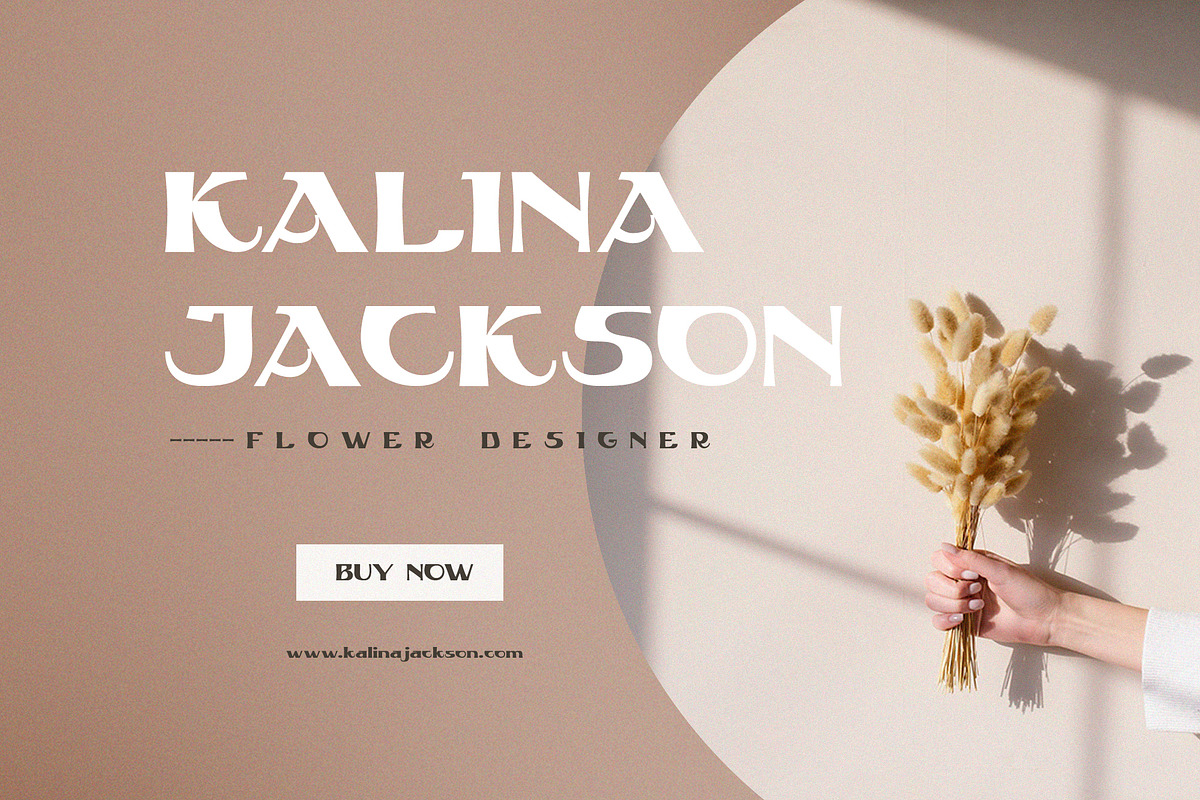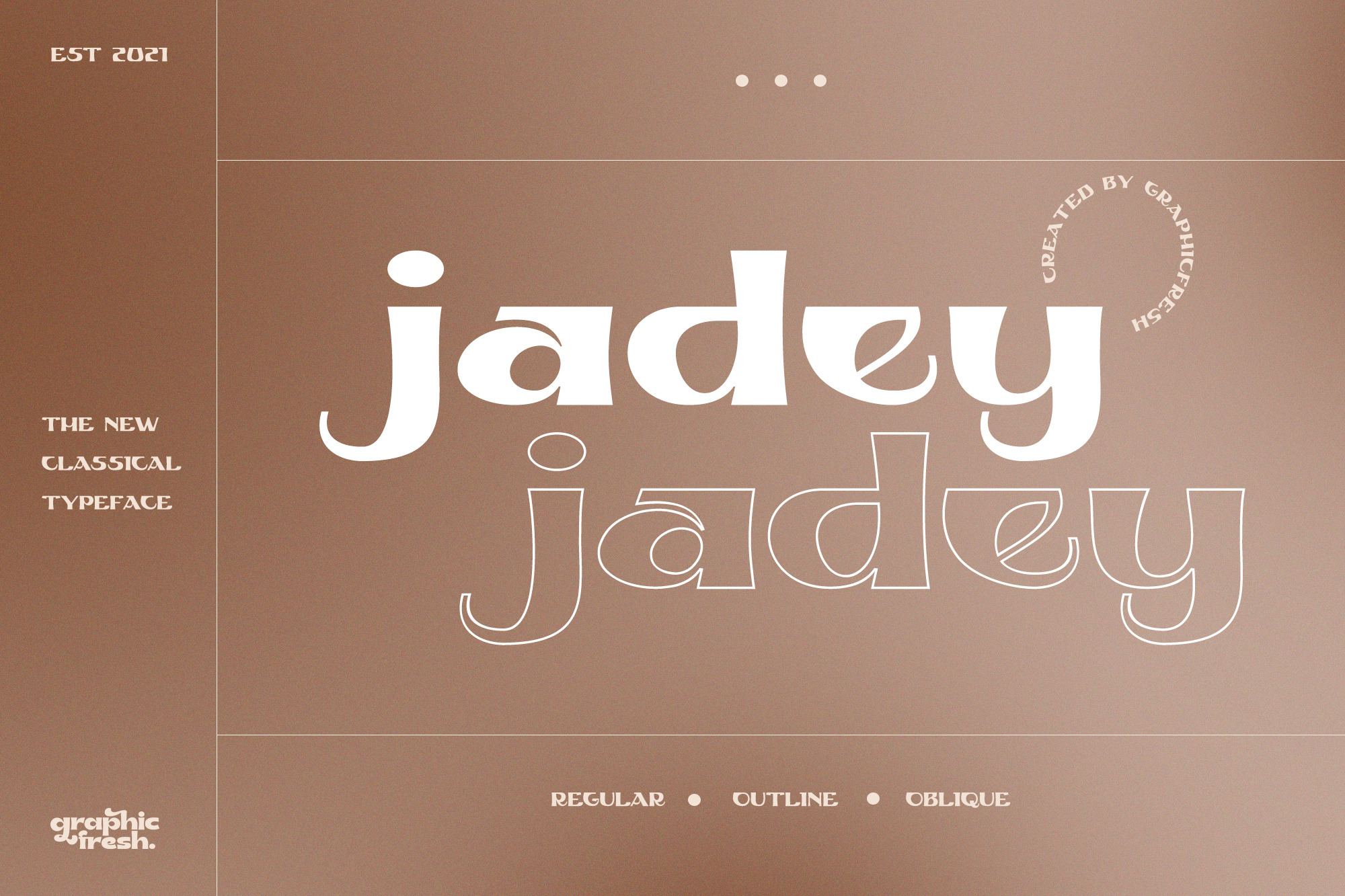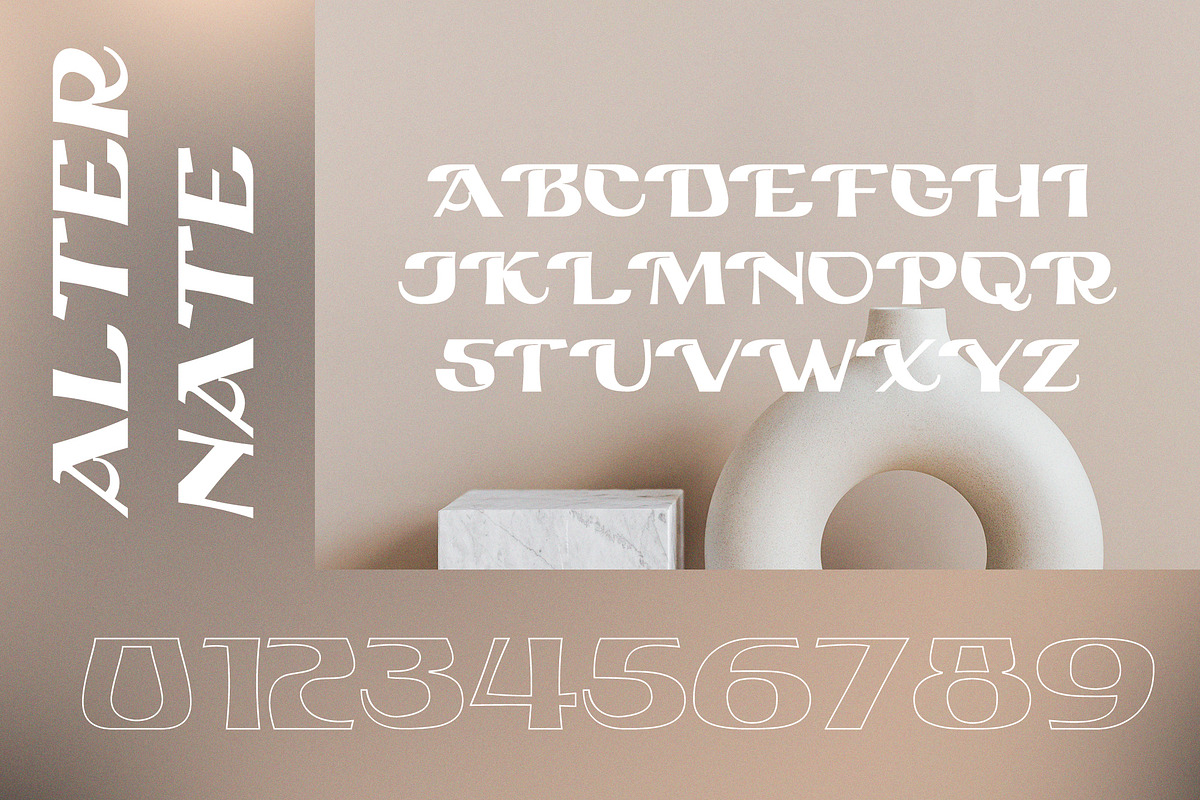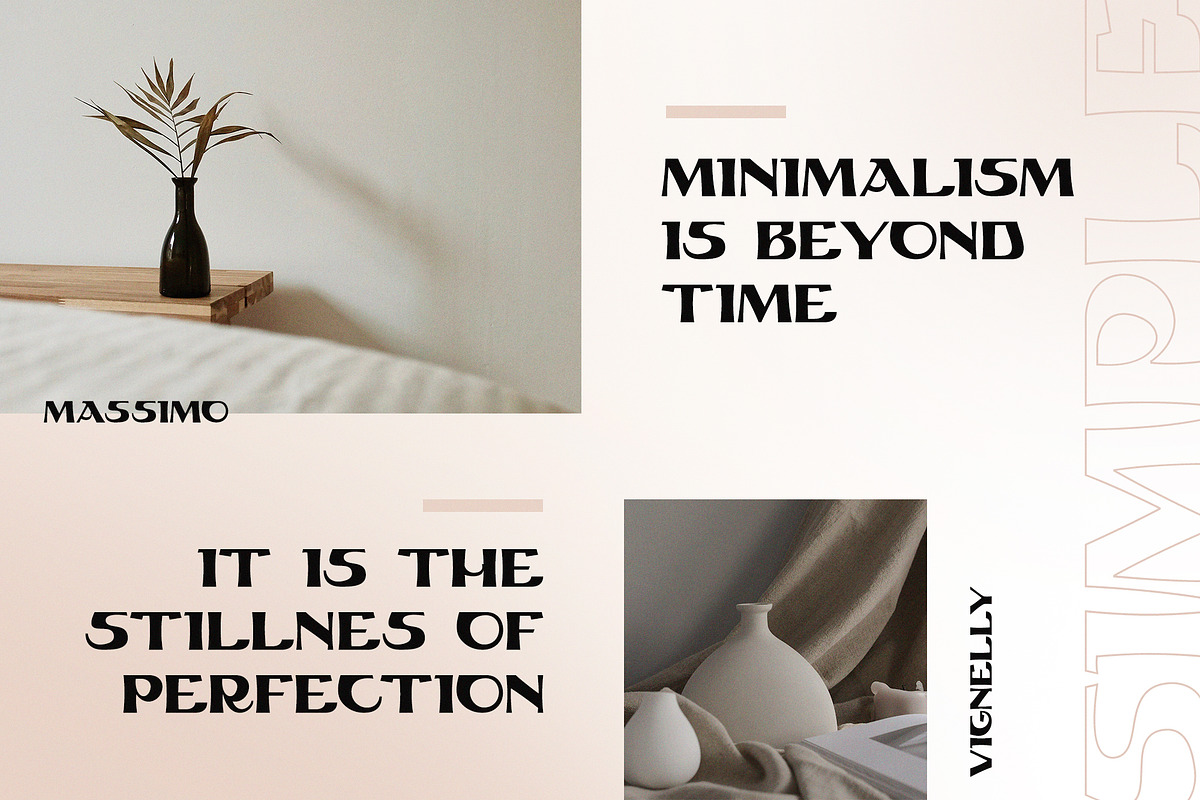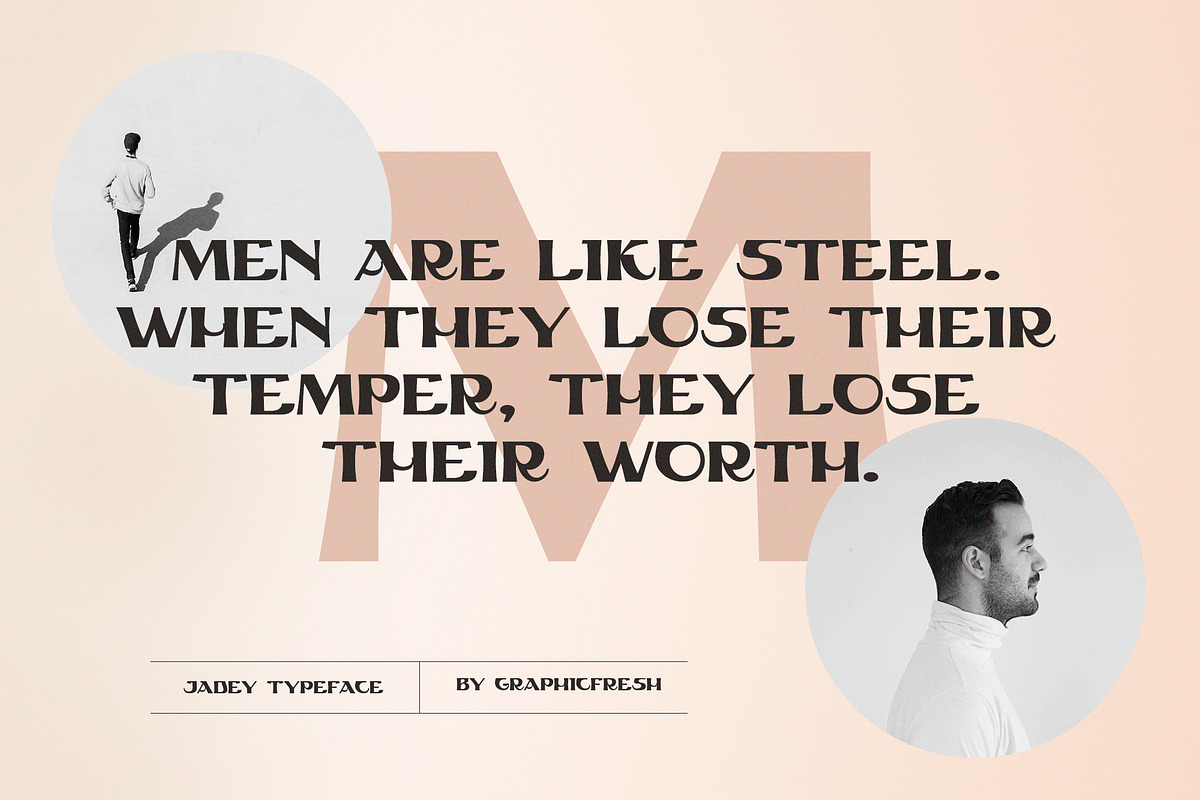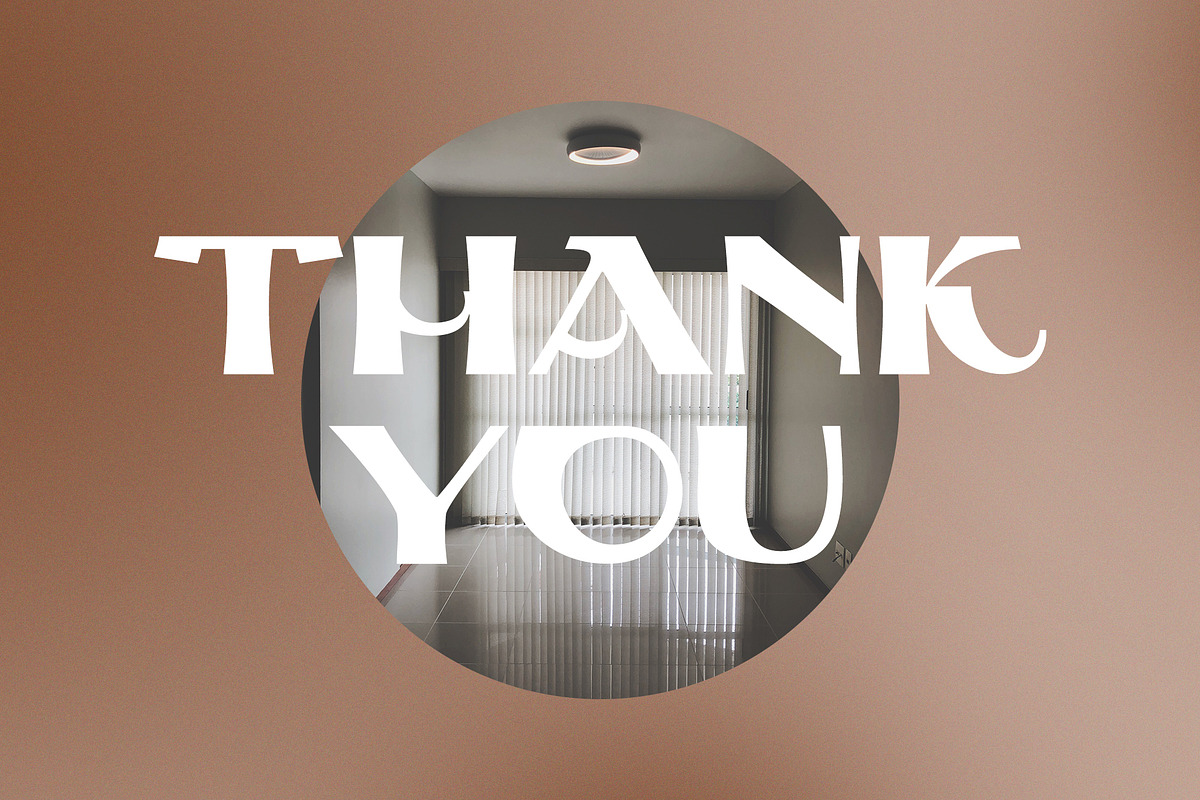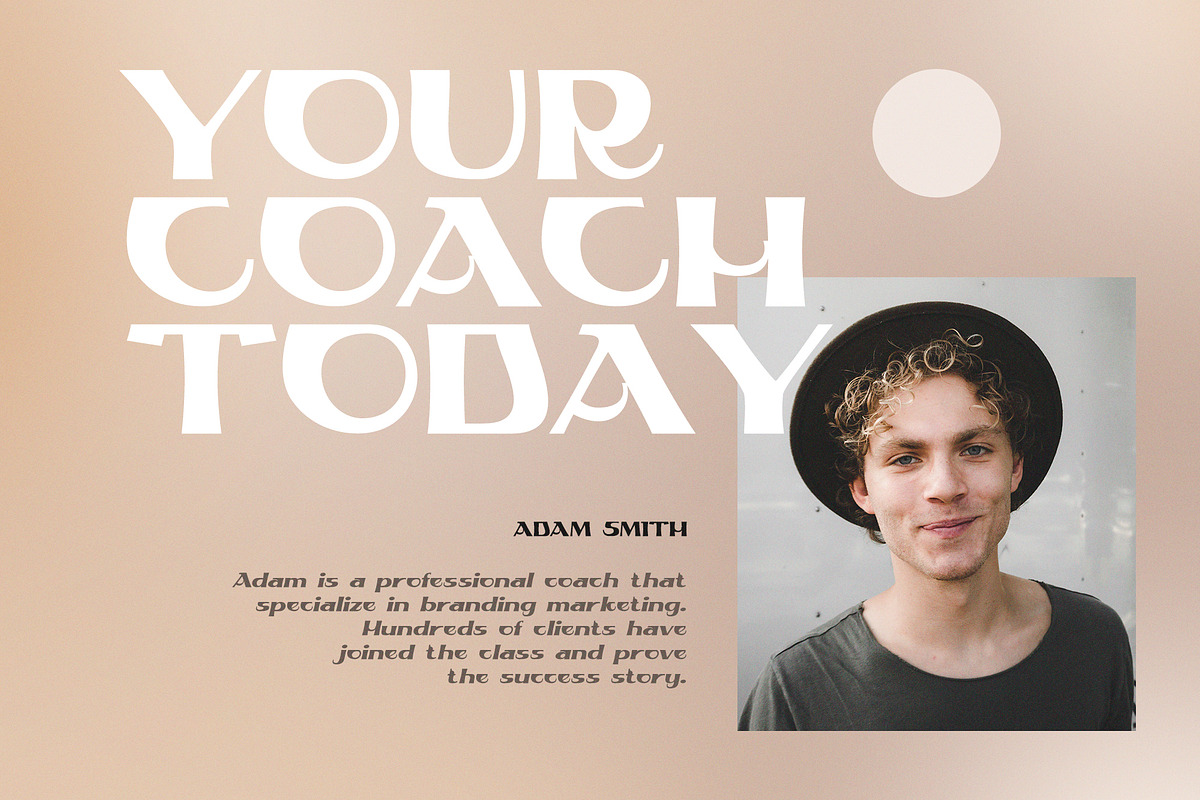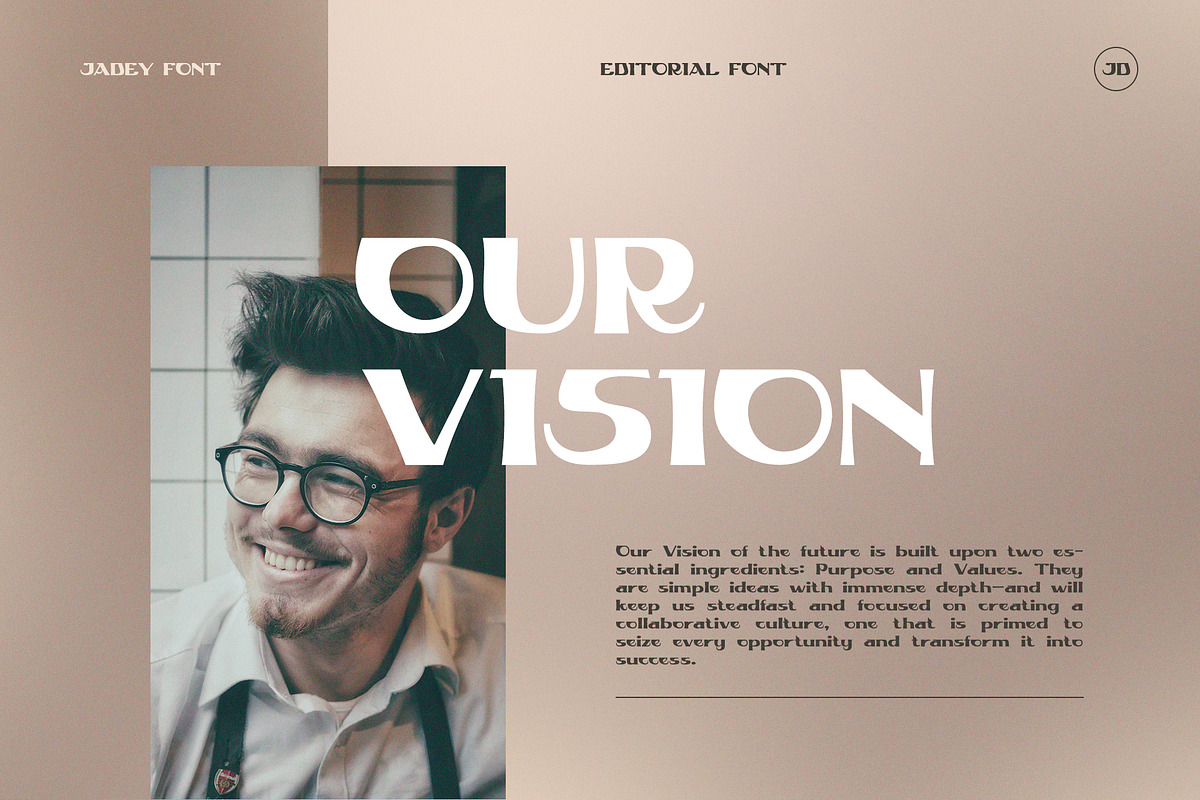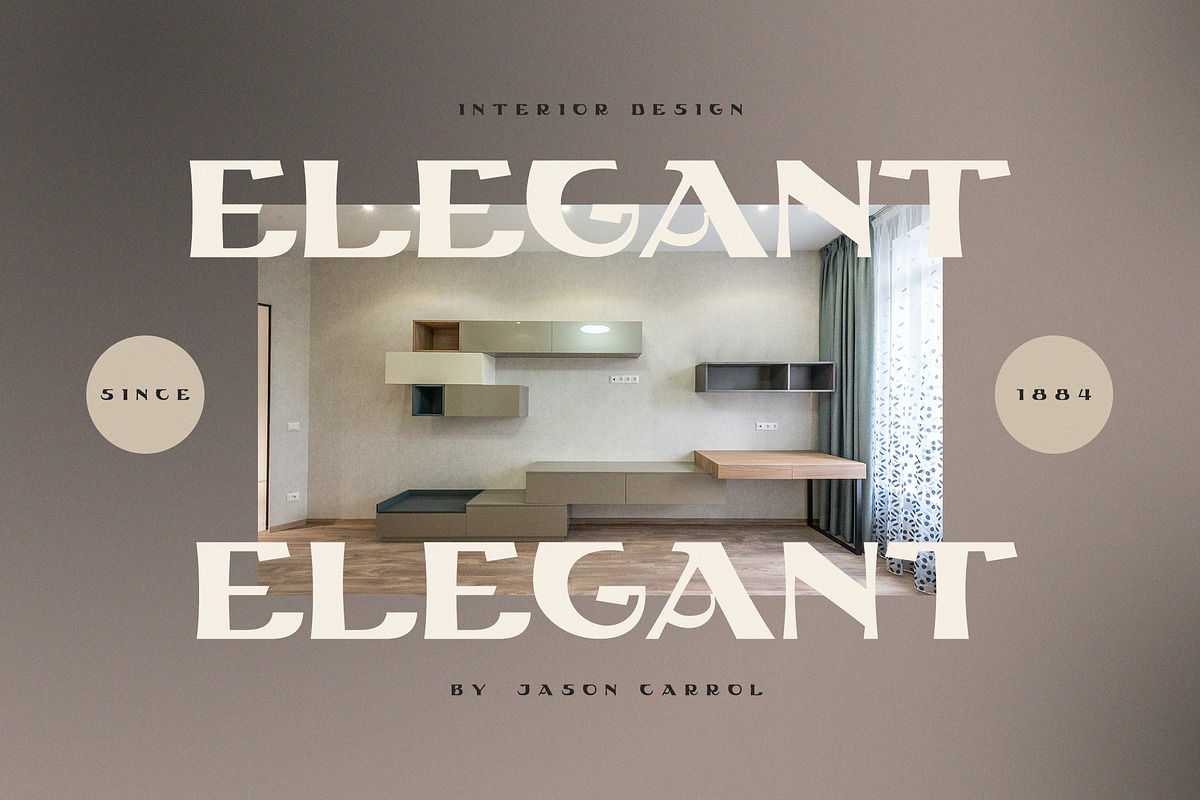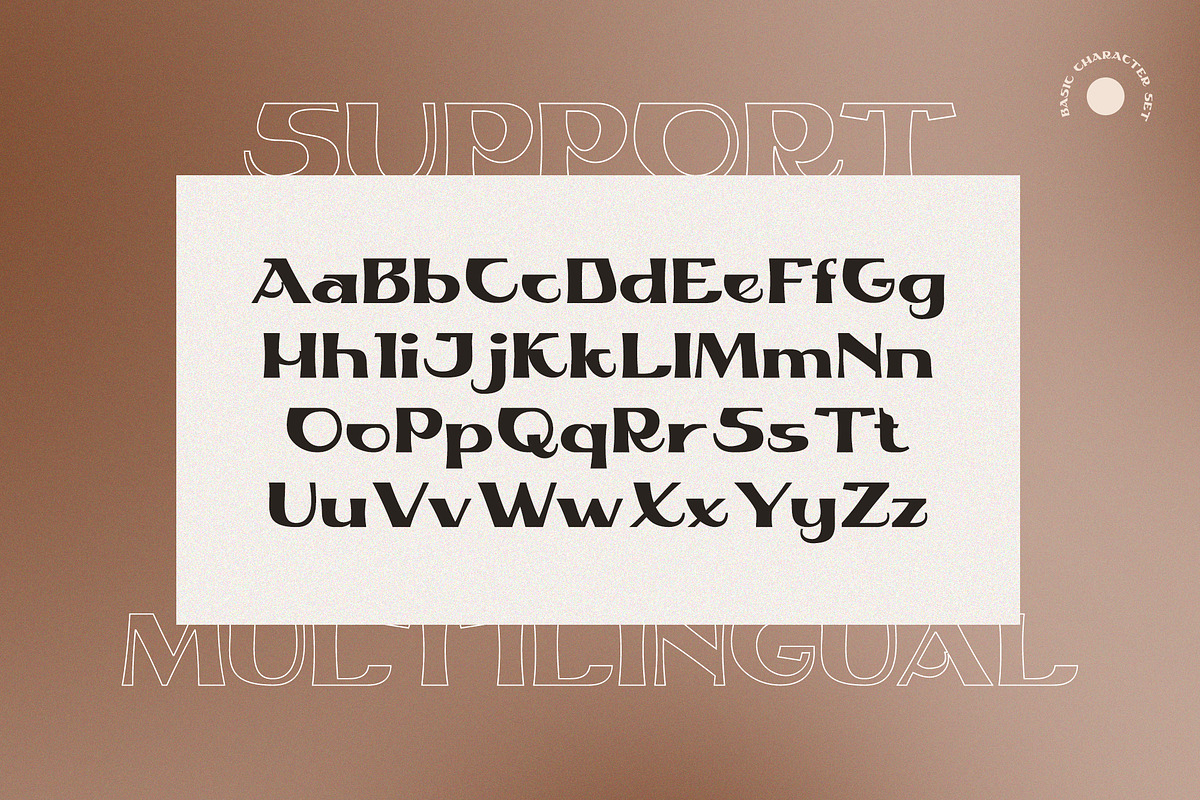
Jadey - The Classical Serif Font
We tried to make different fonts. With a touch of the ethnic past. So that this font looks more classic and modern. Measuring each letter reminds us of the past in some works in Indonesia. Although it looks classic, this font is perfect when combined with today's design styles. Have fun being creative with this font.
- Jadey, Regular, Outline and Oblique version, numerals and more of symbols.
- Multilingual support for various languages